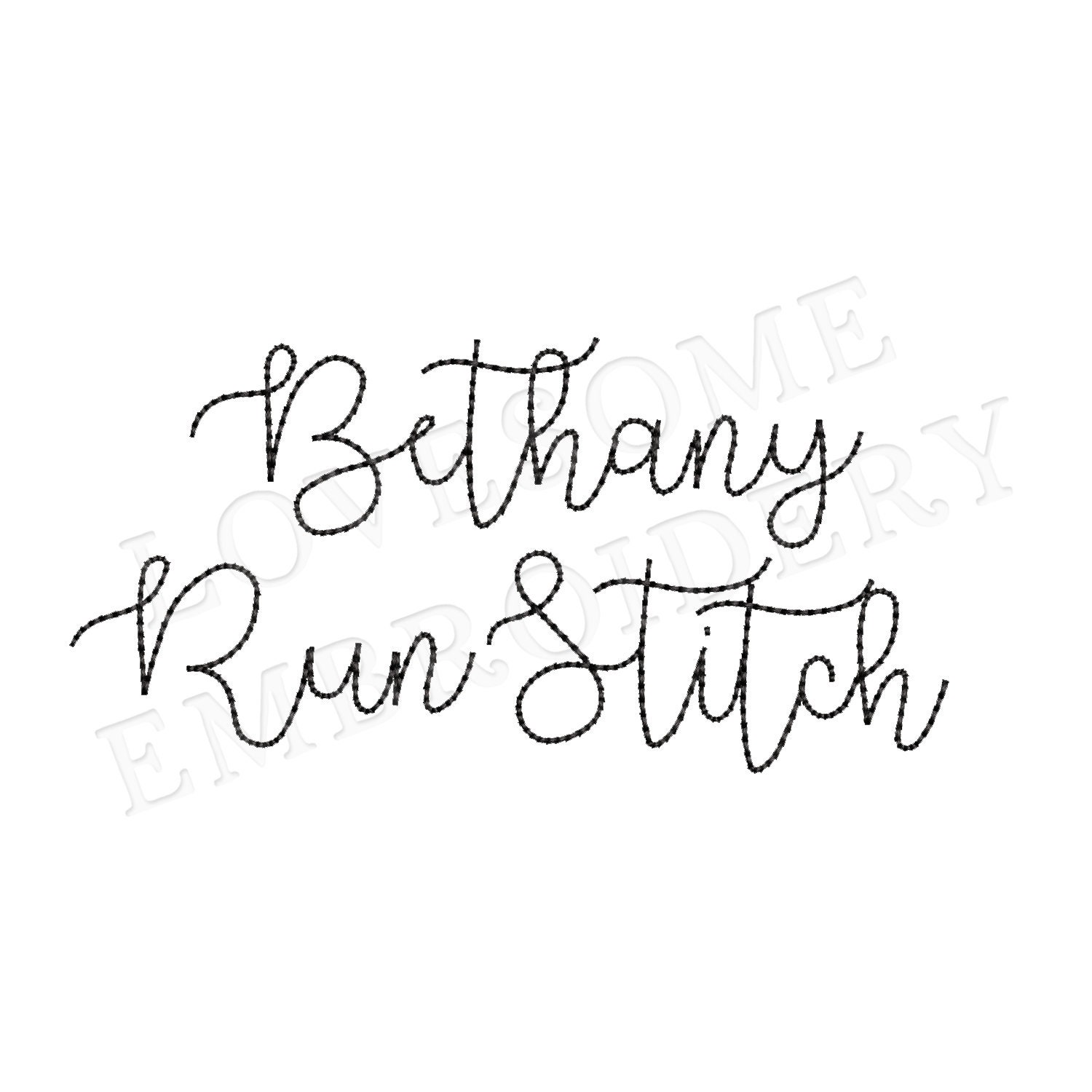
Bethany Script 0.75inch Bean Stitch Font A-Z, Cursive Run Stitch Font, Machine Embroidery Digital Download | Lovesome Embroidery
This listing features a machine embroidery font set which includes bean stitch embroidery files of 26 uppercase and 26 lowercase letters in 0.75inch size. (For the whole set, pls see the listing images.)